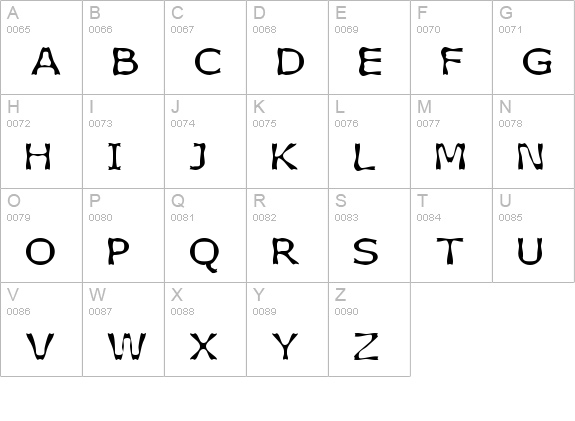
Boneribbon font is a playful and whimsical typeface that brings a touch of elegance and charm to any design project. Its unique combination of curvy lines and decorative elements make it perfect for adding a fun and festive touch to invitations, greeting cards, posters, and more. The font features smooth and flowing characters that are both easy to read and visually appealing. What sets Boneribbon font apart is that it is not only stylish and versatile but also completely free to download. You can access this delightful font at FontsMarket.com, where you can easily add it to your collection and start using it in your creative projects right away. Whether you're designing for personal or commercial use, Boneribbon font is sure to bring a touch of whimsy and sophistication to your work.